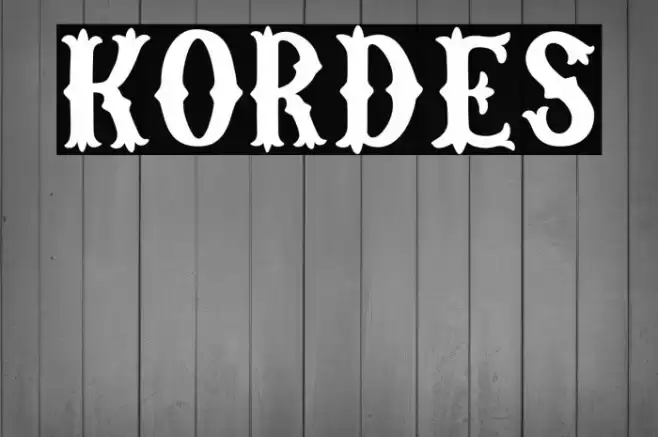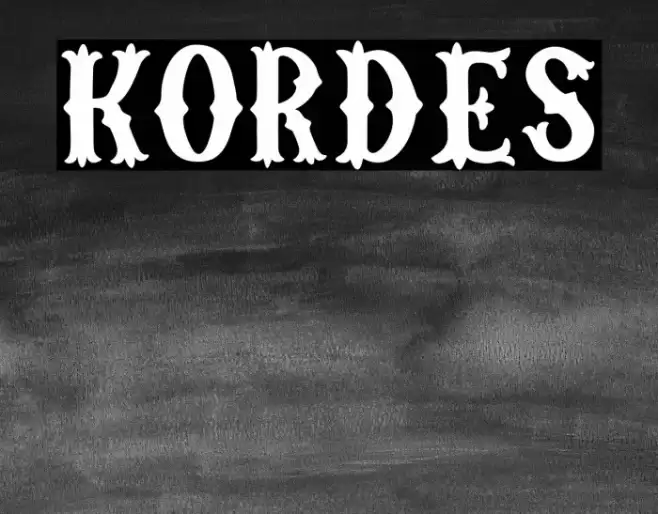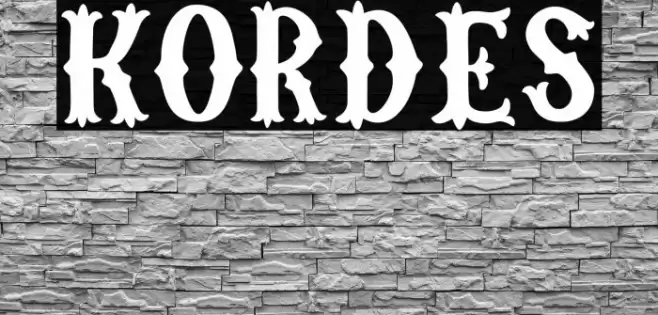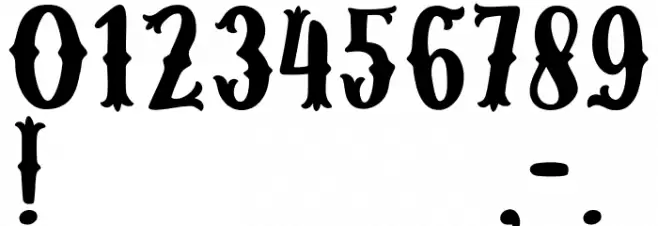
Kordes Font
Kordes Description
This font features a bold and decorative style with intricate details on each character. The uppercase letters have a distinct flair, with sharp serifs and unique embellishments that give it a gothic and ornate appearance. The lowercase letters maintain the same decorative elements, ensuring consistency throughout the typeface. Numbers are equally stylized, with a bold presence that matches the overall theme. The special characters are designed to complement the font's aesthetic, making it suitable for creative and artistic projects.
A bold, decorative font with gothic and ornate elements from Uncategorized fonts.
- Proposed Projects: Ideal for Halloween-themed designs, gothic posters, album covers, and any project requiring a dramatic and artistic touch.
- Overall Style: Gothic, Decorative
- Use Case: Headlines, Posters, Logos